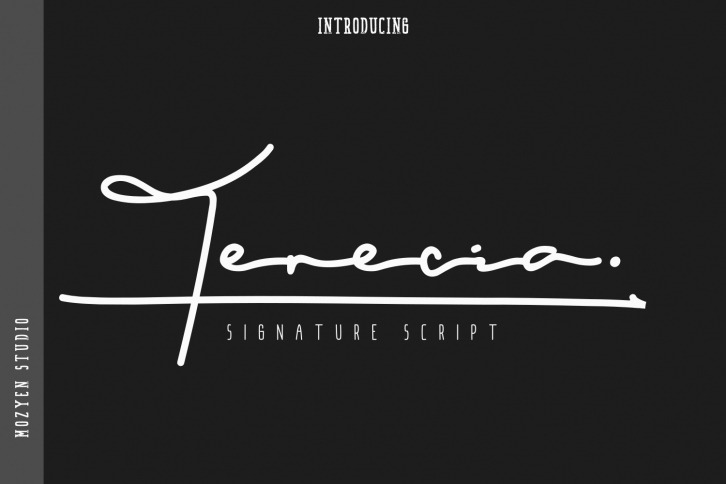
Terecia is a trendy and unique font with an authentic style. It was designed by Mozyen Studio and it's a great choice for creative people who need such a font. It was released on February 14, 2020 and the file size is 7.55 MB. Terecia will add an organic vibe to any design idea!